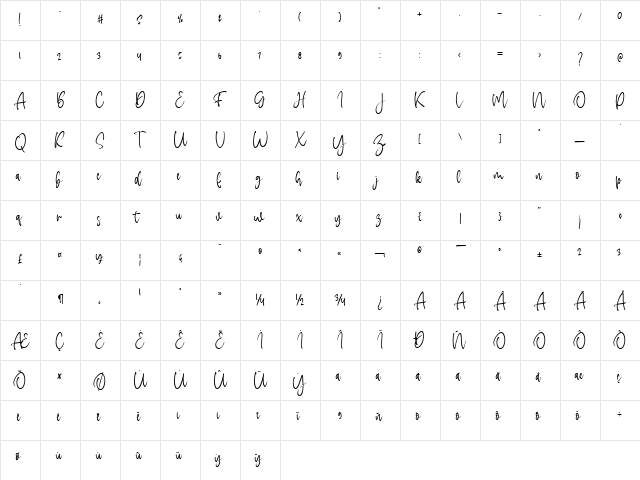
Singaparna Script Regular
Design Context for Singaparna Script Typeface
Singaparna Script flows with the natural rhythm of handwritten lettering, making it ideal for designs that call for warmth and personal expression.